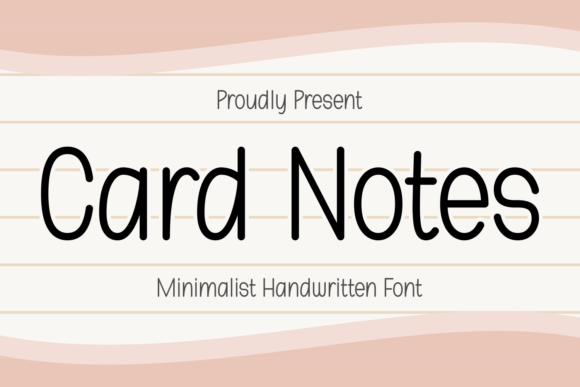
The Elegance of Card Notes Font: A Designer’s New Best Friend
I still remember the design project that led me to discover Card Notes Font. I was working on a wedding invitation suite, and my client was adamant about finding a font that exuded elegance and sophistication. I had spent hours scouring the internet, trying out different fonts, but nothing seemed quite right. That was when I stumbled upon Card Notes Font. Its clean, slender lines and effortless strokes immediately caught my attention, and I knew I had found the perfect fit.
An Honest Review of Card Notes Font
- ✨ The minimalist handwritten style of Card Notes Font is perfect for designs that require a touch of elegance and sophistication.
- ✅ The font’s clean lines and effortless strokes make it easy to read and understand, even at small sizes.
- 💫 The font’s versatility allows it to be used in a variety of design projects, from wedding invitations to business cards.
- 🎨 The font’s subtle imperfections give it a human touch, making it perfect for designs that require a personal and authentic feel.
While Card Notes Font is an excellent choice for many design projects, it’s not without its quirks. For example:
- 🤔 The font can be a bit too slender for very large titles or headings, which may make it harder to read.
- ⚠️ Some users have reported issues with kerning, particularly when using the font at smaller sizes.
The Story Behind Card Notes Font
Card Notes Font was designed by a team of typographers who wanted to create a font that was both elegant and simple. The font’s clean lines and effortless strokes were inspired by traditional handwritten notes and cards. The design team aimed to create a font that would be perfect for designs that require a touch of sophistication and authenticity.
Q: What is the best way to use Card Notes Font in my designs?
A: Card Notes Font is a versatile font that can be used in a variety of design projects, from wedding invitations to business cards. Experiment with different font sizes and styles to find the perfect fit for your design.
Q: Is Card Notes Font suitable for body text?
A: While Card Notes Font is a beautiful font, it’s best suited for headings and titles. For body text, you may want to consider a font with more traditional typography features.